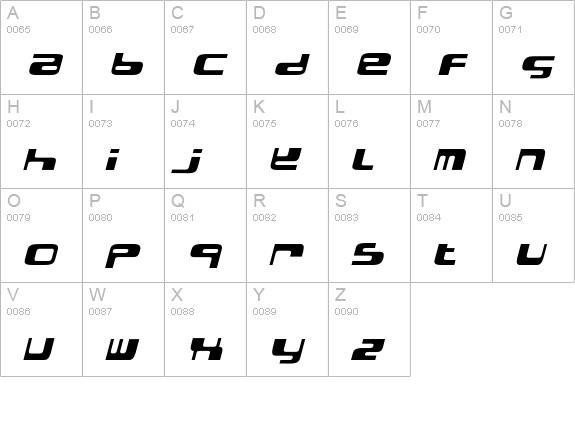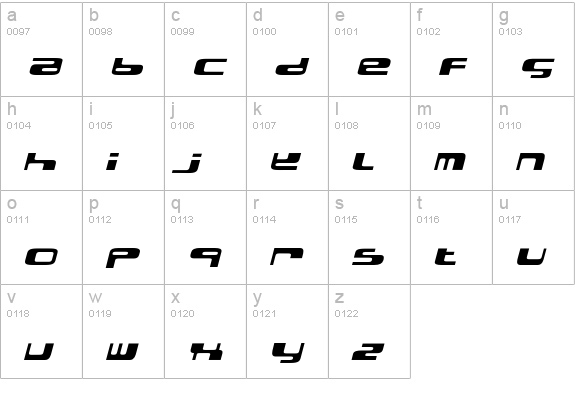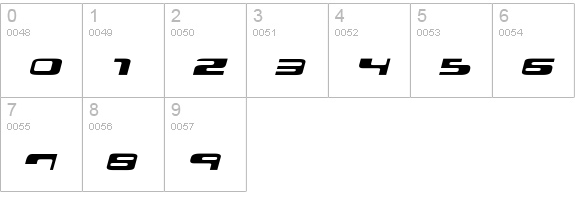
BDElectrobazar-Italic Font Details
BDElectrobazar-Italic is a distinctive, italic variant in the BDElectrobazar typeface family \xE2\x80\x94 well suited to design and typography projects.
BDElectrobazar-Italic is a sleek and modern font that exudes a sense of sophistication and elegance. Its italicized style adds a touch of flair to any design project, making it perfect for use in branding, advertising, and editorial content. The clean lines and sharp angles of BDElectrobazar-Italic give it a contemporary and stylish look that is sure to make a statement. This versatile font is suitable for a wide range of applications, from website headers to social media graphics to print materials. Whether you're working on a poster, a logo, or a magazine layout, BDElectrobazar-Italic will elevate your design with its unique aesthetic. Best of all, BDElectrobazar-Italic is available for free download at FontsMarket.com. So you can easily add this eye-catching font to your collection and start using it in your projects right away. Don't miss out on the opportunity to enhance your designs with the bold and modern look of BDElectrobazar-Italic.